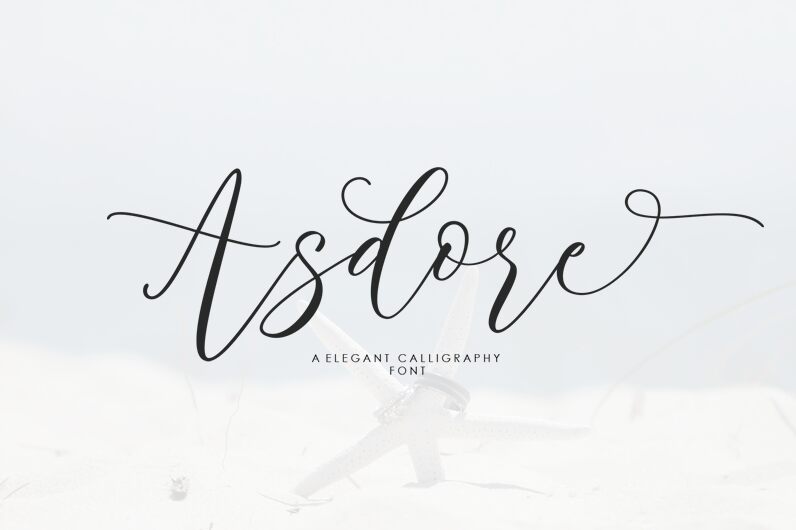
Asdore
Asdore, designed by Moriztype, is an exquisite font that embodies the essence of elegant calligraphy.
Its extra-light weight adds a delicate touch to any project, making it ideal for wedding invitations and event announcements. The fluid strokes and graceful curves of Asdore create a sense of sophistication and refinement, perfect for luxury brand logos or high-end packaging designs. Whether used in print or digital media, this font exudes elegance and captures attention with its timeless beauty.
Let Asdore elevate your next design project with its enchanting allure and refined aesthetics.